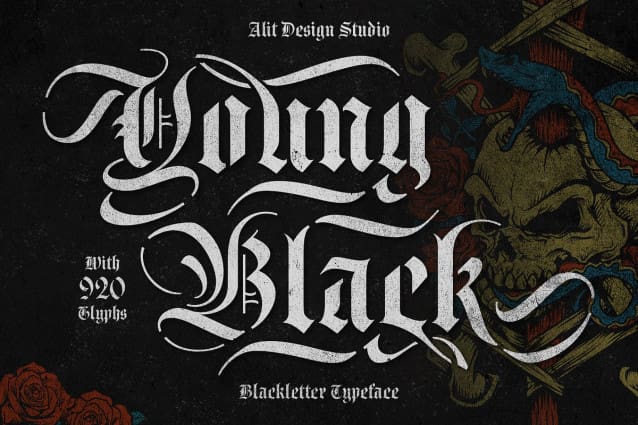
Young Black Font
Young Black Typeface, a meticulously designed blackletter stencil font that strikes the perfect balance between tradition and modern innovation. This typeface embodies a rebellious yet sophisticated aesthetic, making it ideal for designers looking to create striking visuals with a bold, historical feel.
What sets Young Black apart is its calculated stencil design—crafted with precision to ensure no part of the material is fully detached when cut, preserving the integrity of each character. Whether you’re working with digital projects or physical stencil applications, this typeface guarantees both usability and artistic impact.